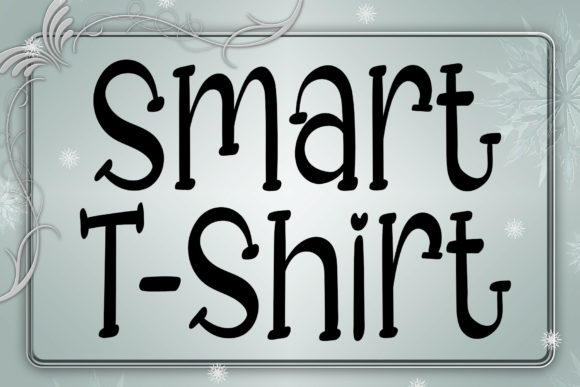
Are you a designer looking for the perfect font to elevate your SVG designs? Look no further than Smart T-Shirt Font, the best font for SVG designers! Created by BabyArt, this font family is a cool, quirky, and casual slab serif font that is sure to make your designs stand out.
With its unique and eye-catching design, Smart T-Shirt Font is perfect for a wide range of projects, from logos and branding to web design and social media graphics. Its versatility and adaptability make it an ideal choice for any creative project.
But what truly sets Smart T-Shirt Font apart is its potential to add emotion and personality to your designs. Its casual and approachable style is perfect for conveying a friendly and inviting tone, while its bold and striking design can add drama and impact to any message.